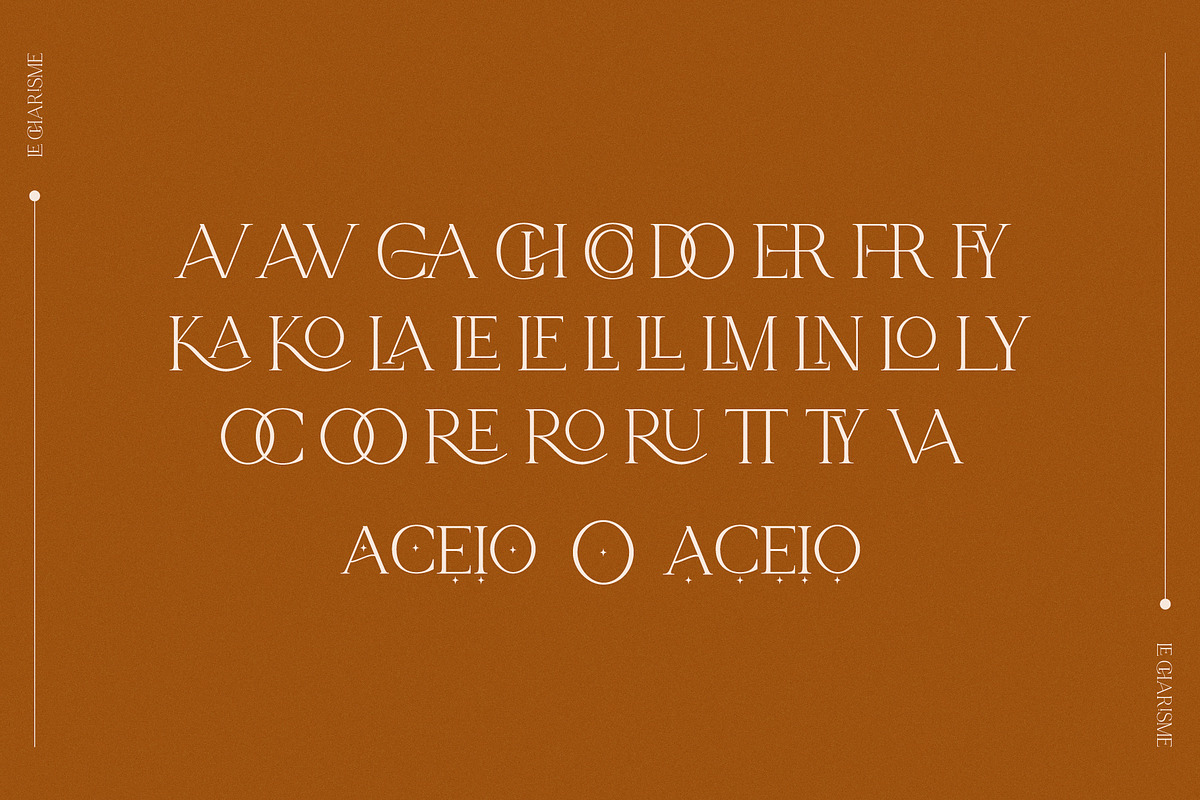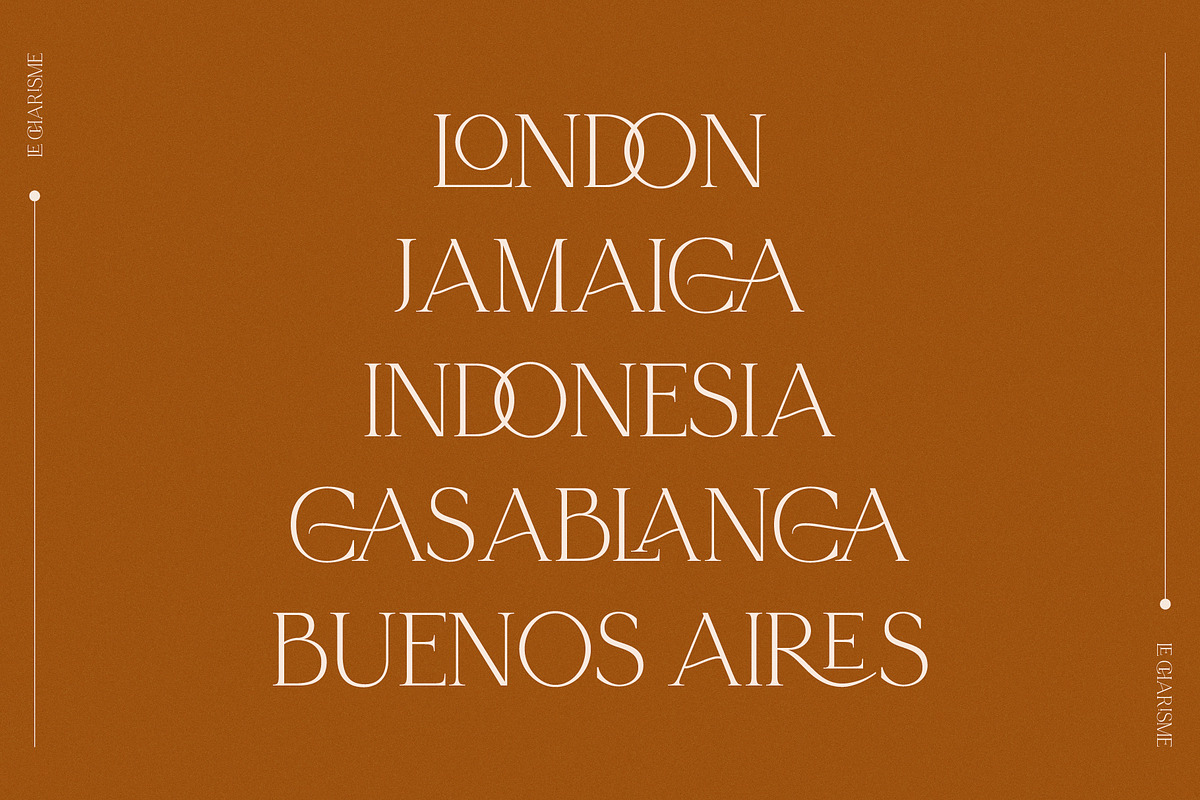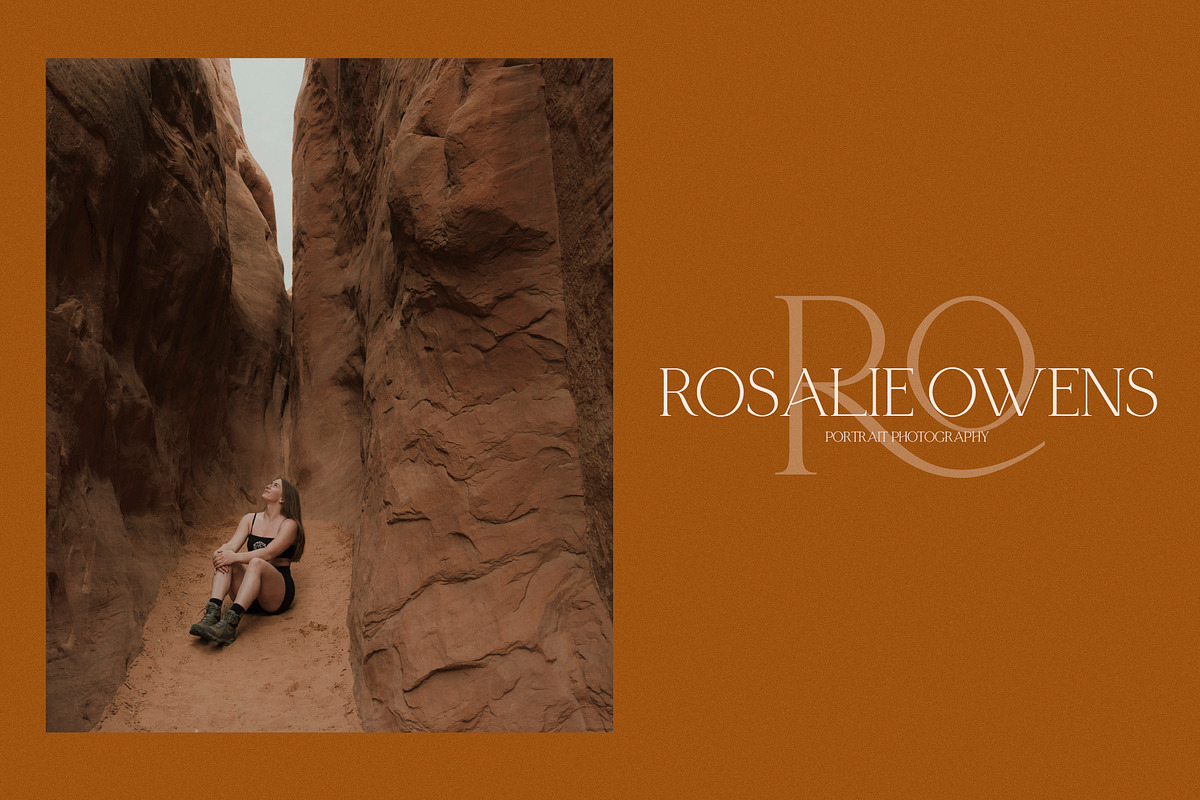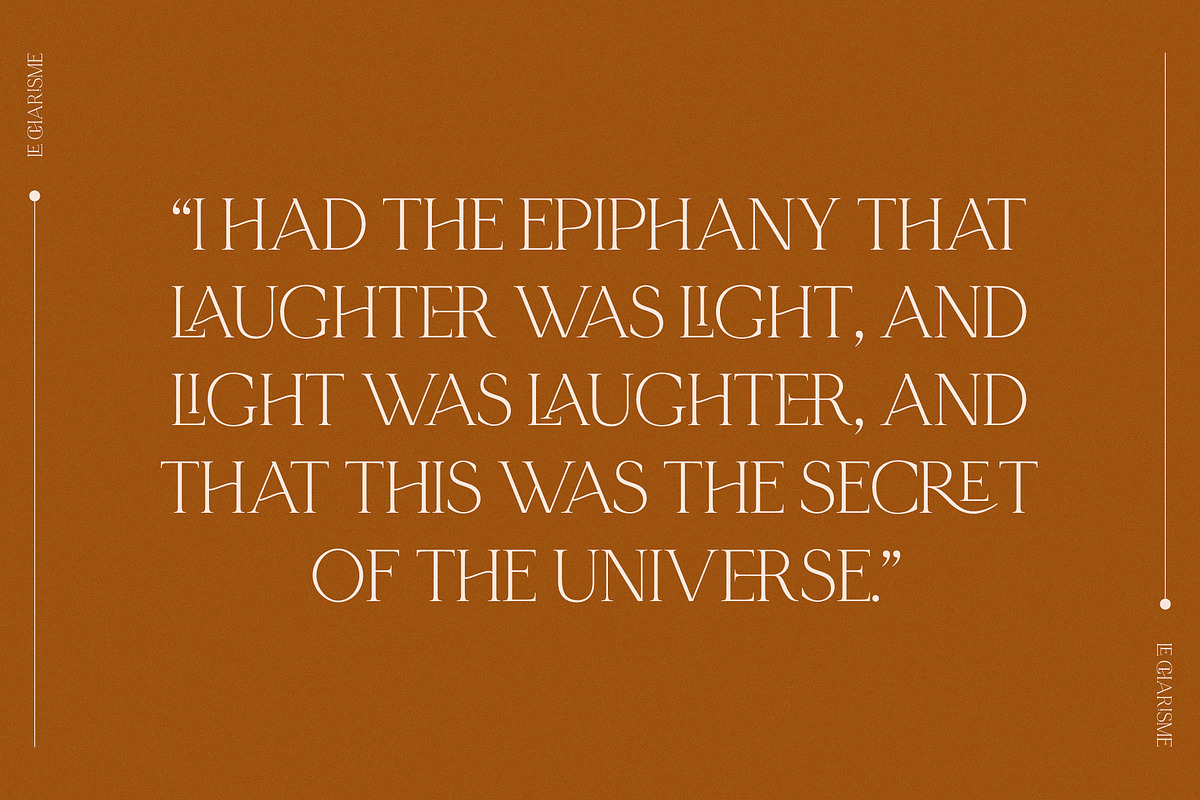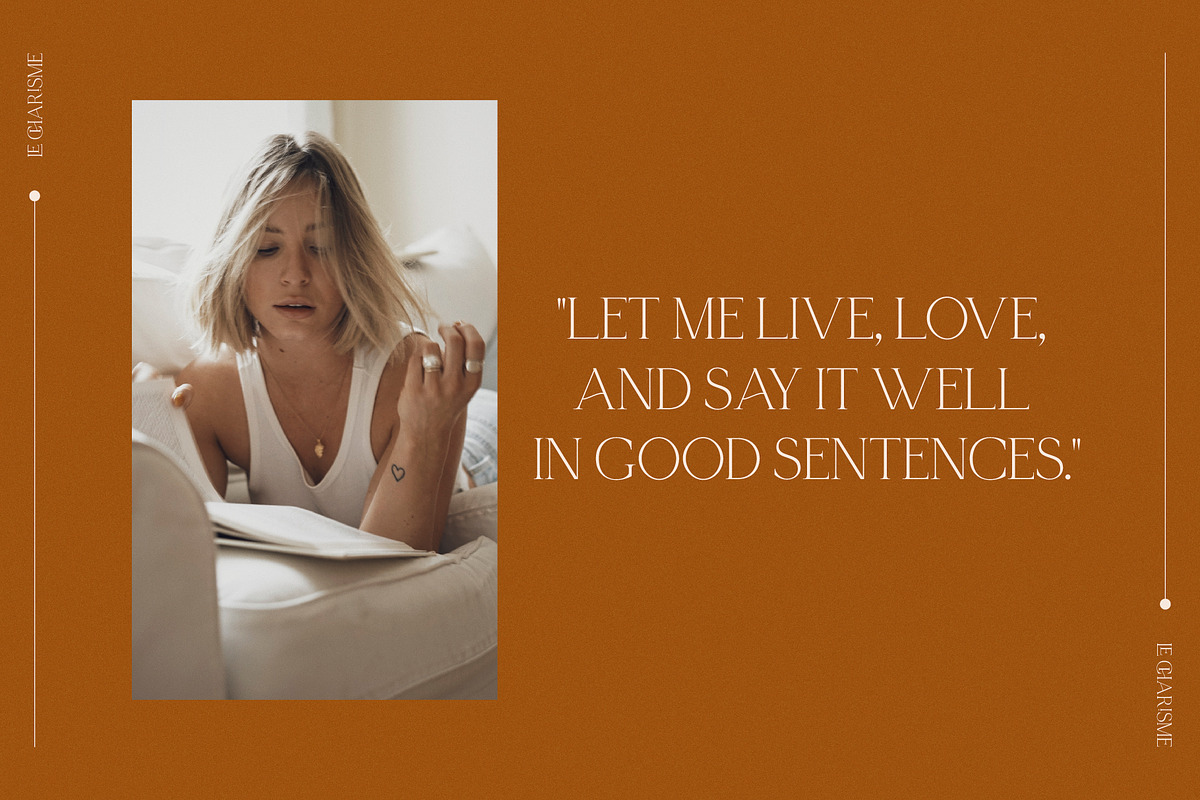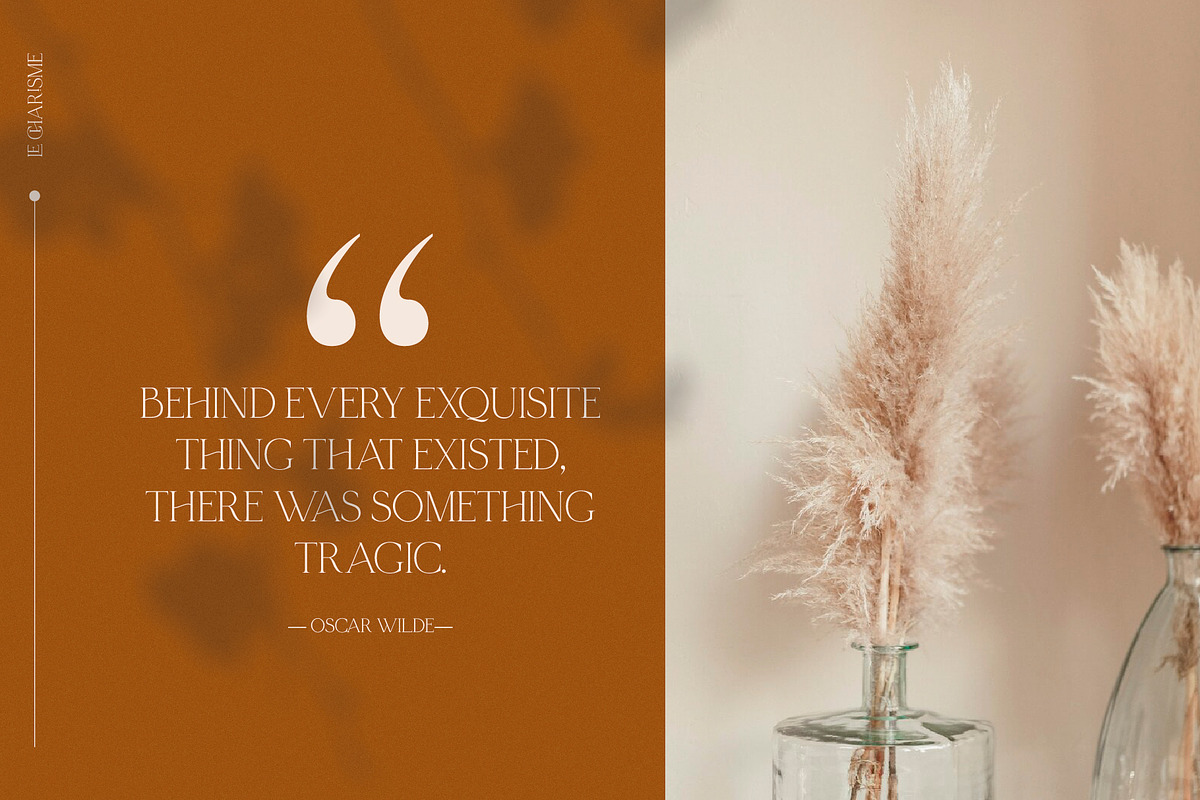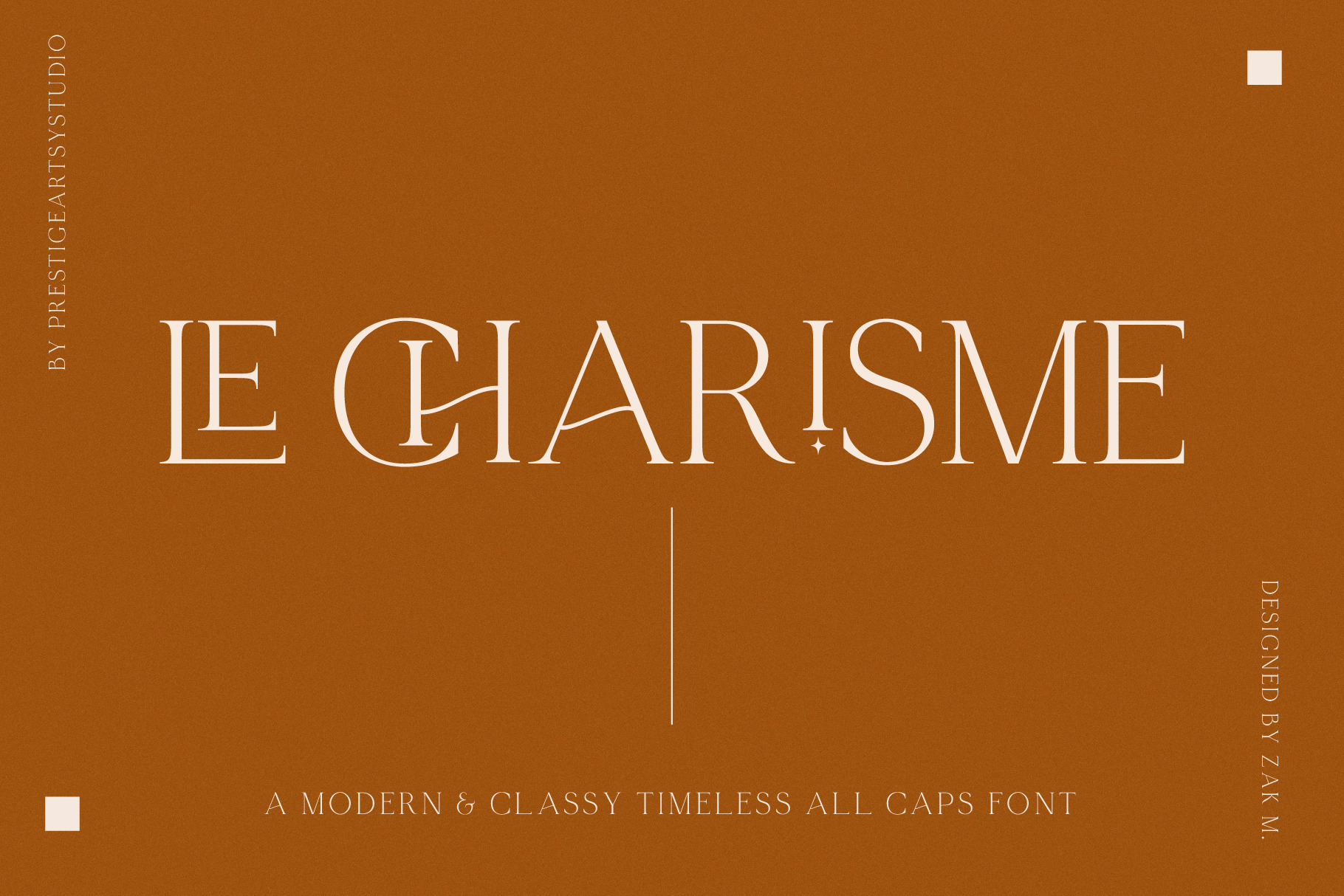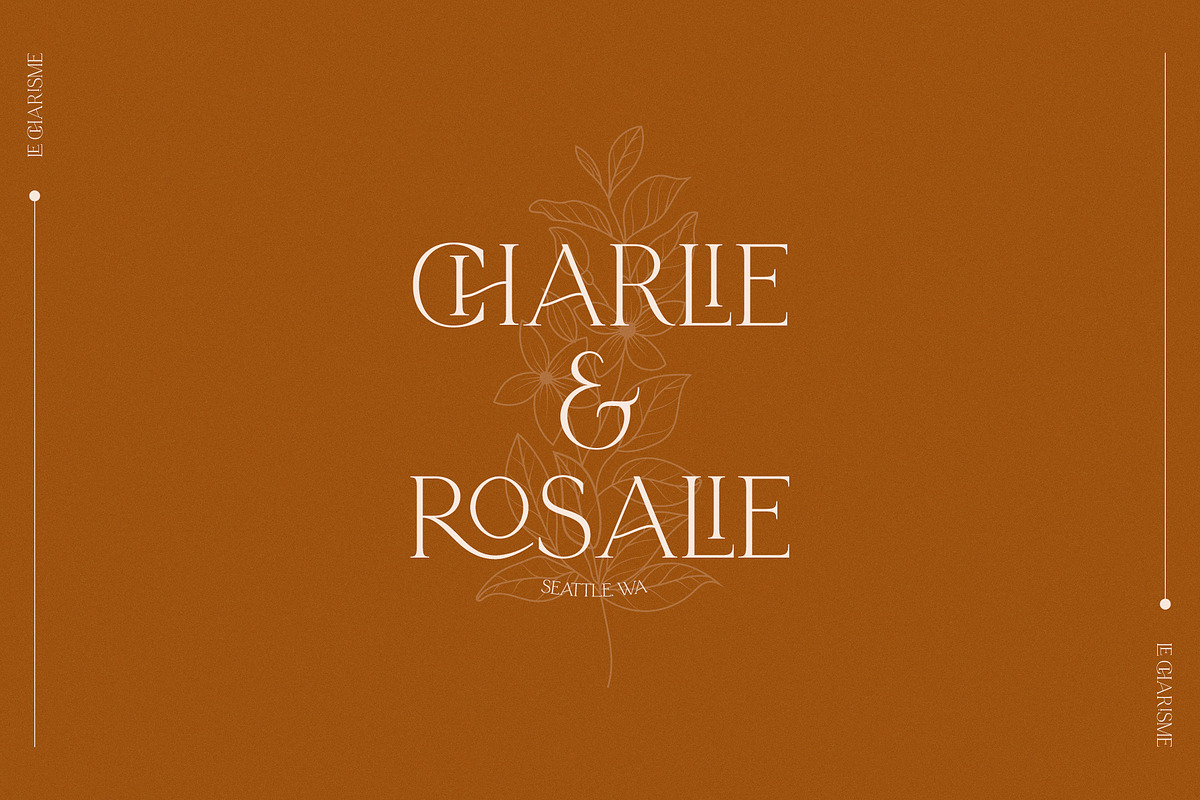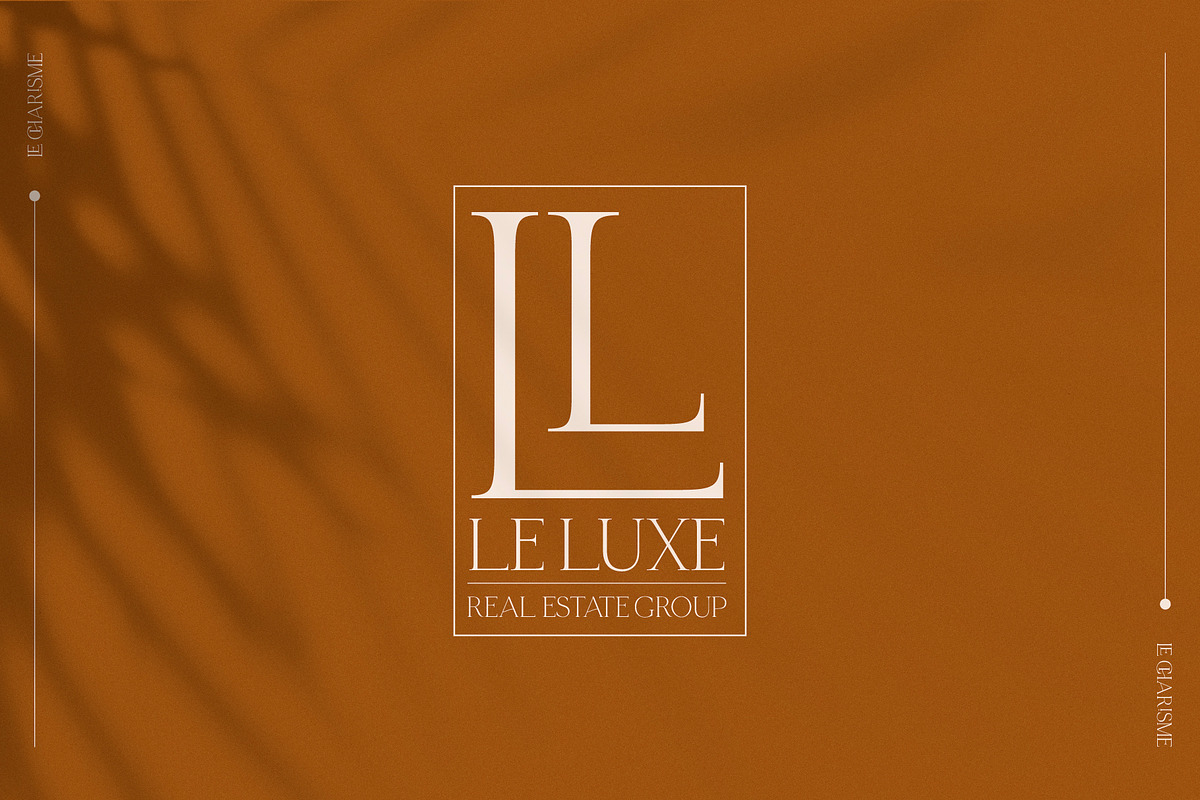
Le Charisme A Classy All Caps Font
Le Charisme is a modern charismatic and timeless all-caps serif font that is perfect for any branding project. Le Charisme is also ideal for quotes, headings, or even wordmark logos. Le Charisme provides a beautiful touch of charisma and class to your projects.
Le Charisme comes in with its official alternates and ligatures that are ideal to incorporate in your luxurious projects. The font is fully accessible by trying in lowercase and uppercase.